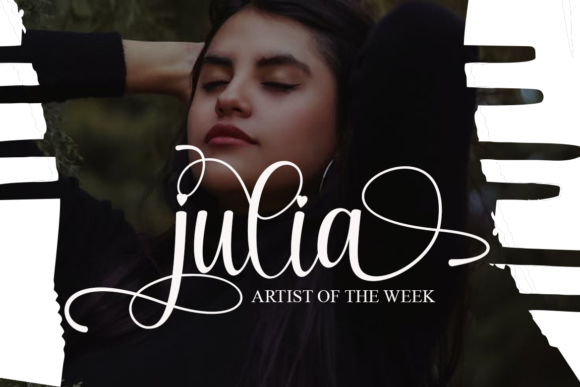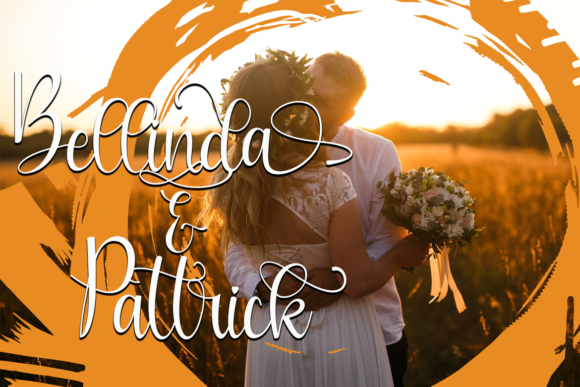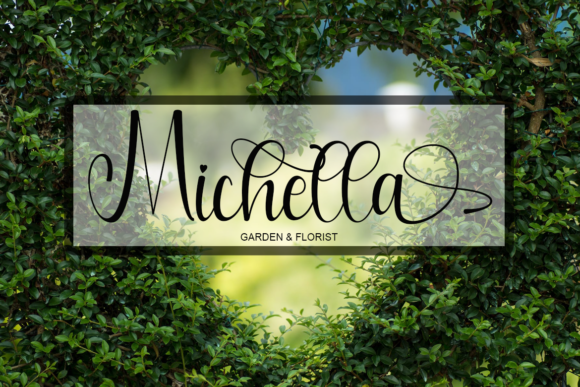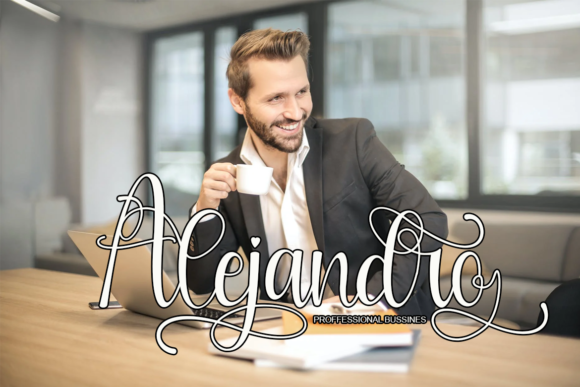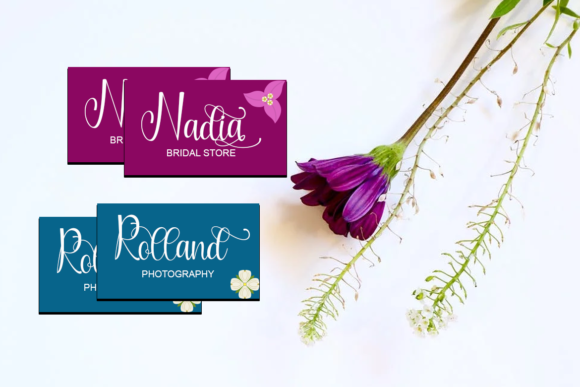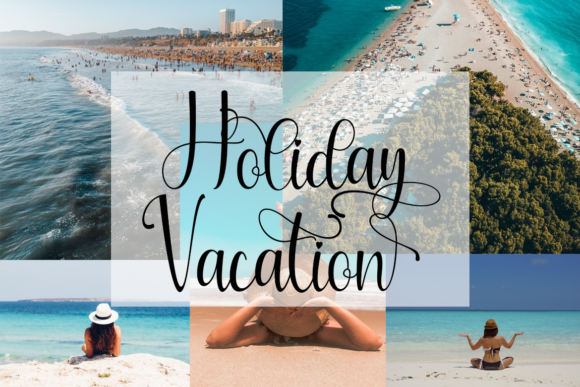
Introducing Actually Font: A Romantic and Sweet Calligraphy Typeface
Are you a designer or crafter looking for a unique and elegant font to add a touch of personality to your projects? Look no further than Actually Font, a romantic and sweet calligraphy typeface that is sure to capture your heart. With its casual yet elegant touch, this font is perfect for a variety of design applications, from wedding invitations and stationery to branding and packaging.
What Makes Actually Font Special?
Actually Font is a beautifully crafted calligraphy typeface with characters that dance along the baseline, creating a sense of movement and fluidity. The font’s casual, yet elegant touch makes it perfect for designers and crafters who want to add a touch of sophistication to their projects. Whether you’re creating a wedding invitation, a logo, or a social media graphic, Actually Font is sure to make your design stand out.
One of the best things about Actually Font is that it is PUA (Private Use Area) encoded, which means that you can access all of the glyphs and swashes with ease. PUA encoding allows you to access additional characters and features that are not available in standard fonts, making it easier to create unique and customized designs. With Actually Font, you can easily access a wide range of glyphs and swashes, allowing you to add a personal touch to your designs.
Actually Font is perfect for designers and crafters who want to add a touch of elegance and sophistication to their projects. The font’s romantic and sweet calligraphy style makes it ideal for a variety of design applications, including:
• Branding and packaging
• Logos and signage
• Paper crafts and DIY projects
Tips for Using Actually Font
Here are a few tips for using Actually Font in your designs:
• Use Actually Font as a headline font to add a touch of elegance and sophistication to your design.
• Pair Actually Font with a simpler font to create a beautiful contrast.
• Experiment with different glyphs and swashes to add a personal touch to your design.
• Use Actually Font to create custom wedding invitations, stationery, and other paper crafts.
Why Choose Actually Font?
There are many fonts available that offer a similar calligraphy style, but Actually Font stands out for several reasons:
• Unique and elegant design: Actually Font has a unique and elegant design that is sure to make your designs stand out.
• PUA encoding: The font’s PUA encoding makes it easy to access a wide range of glyphs and swashes.
In conclusion, Actually Font is a beautiful and elegant calligraphy typeface that is perfect for designers and crafters who want to add a touch of sophistication to their projects. With its casual yet elegant touch, PUA encoding, and ease of use, Actually Font is a great choice for a variety of design applications. Whether you’re creating a wedding invitation, a logo, or a social media graphic, Actually Font is sure to make your design stand out.